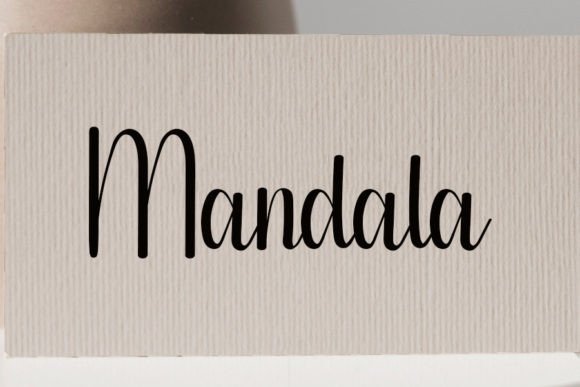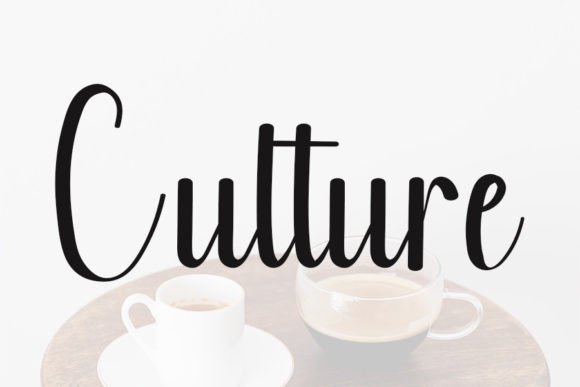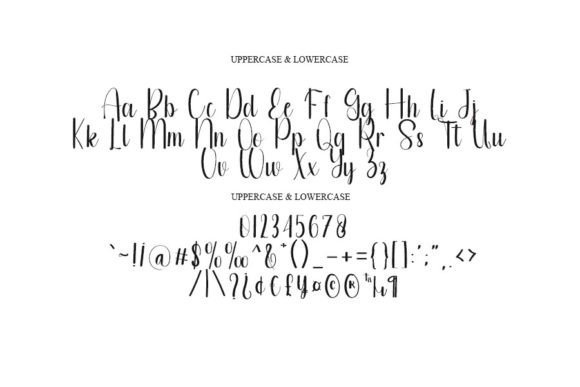
About Autography Font
Autography is a cool handwritten font with a modern vibe and spotless form, inspired by classic calligraphy. Not too thin and not too thick, balanced and varied, this font was designed to enhance the beauty of your projects.